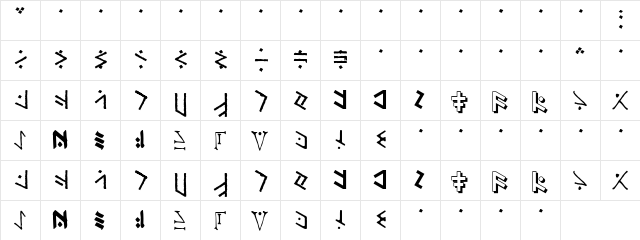
Temphis Sampler Regular
| Designer | S. John Ross |
Design Context for Temphis Sampler Typeface
Temphis Sampler is a composed and adaptable typeface that performs quietly and consistently across a wide range of design contexts.